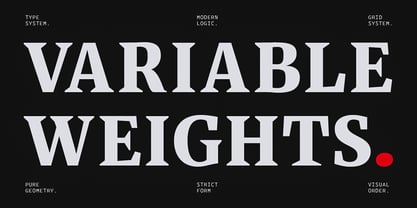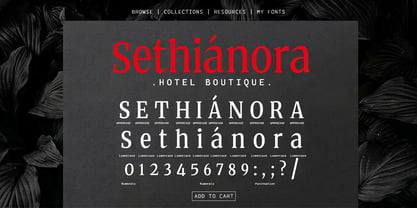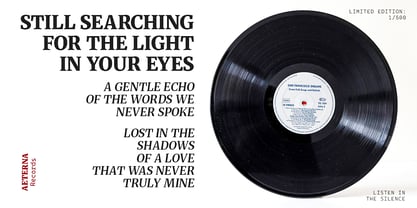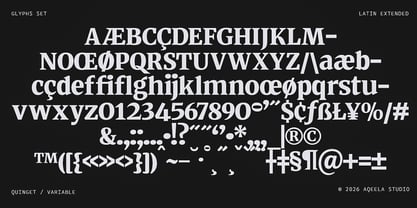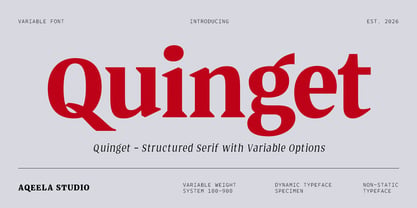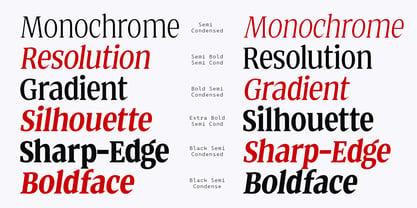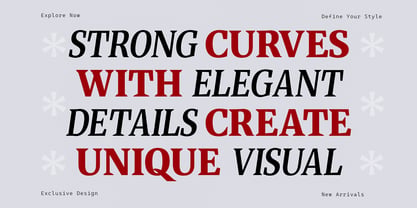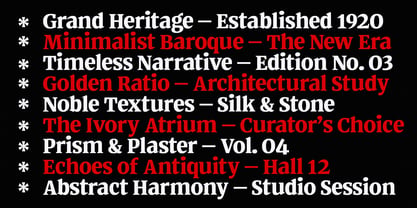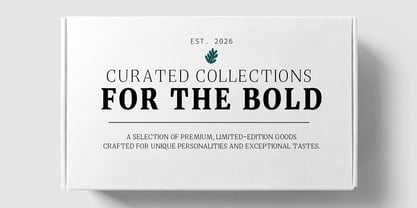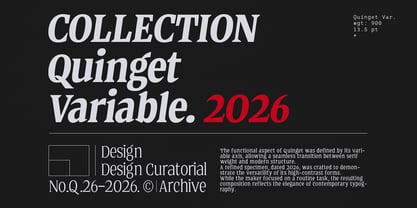
Quinget Variable
par Aqeela Studio
La famille de polices Quinget Variable a été conçue par Muhammad Nasir et publiée par Aqeela Studio. Quinget Variable contient 91 styles et options de package familial. En savoir plus sur cette famille
Quinget is a professional-grade Structured Serif family by Aqeela Studio, designed for maximum versatility. This expansive collection of 91 files offers a comprehensive typographic system for high-end branding and editorial design. Key Features: Massive Variety: A total of 91 files, covering a full spectrum of weights and styles. Variable System: Powered by a 100–900 weight axis for seamless, custom thickness control. Dynamic Design: A "non-static" typeface that blends classical serif elegance with modern digital adaptability. Versatile Utility: Ideal for everything from delicate thin captions to ultra-bold, commanding headlines.
Concepteurs: Muhammad Nasir
Fonderie: Aqeela Studio